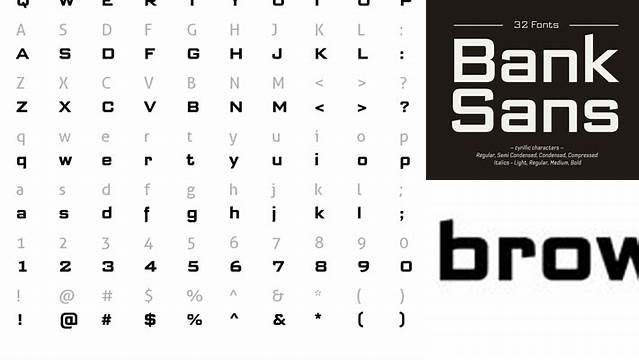
Bank Sans Bold Font: Download Free & Elevate Your Designs
Hey guys! Ever wanted a font that's clean, modern, and packs a punch? Well, look no further than Bank Sans Bold! It's a fantastic font, and the best part? You can often find a Bank Sans Bold free font download option to get you started. In this comprehensive guide, we'll dive deep into everything you need to know about this amazing typeface, from where to snag that Bank Sans Bold font free download to how to use it like a pro. We'll explore its versatility, design applications, and even give you tips on finding the perfect pairing for your projects. So, buckle up, because we're about to embark on a typography adventure! This article will not only give you access to a Bank Sans Bold free download but also provides you with extensive information on how to utilize it effectively. You'll get to understand the essence of the font and how to properly implement it into your design projects. Ready to get started? Let’s jump in!
Bank Sans Bold: Unveiling the Modern Typeface
Alright, let's get down to brass tacks: what is Bank Sans Bold? This font is a modern, sans-serif typeface known for its clean lines, strong presence, and excellent readability. Imagine a font that is both bold and sophisticated, that captures attention without being overly flashy – that's Bank Sans Bold in a nutshell. Its design makes it ideal for a wide array of applications, from headlines and logos to body text and branding materials. The font's versatility is a key reason for its popularity. Bank Sans Bold's straightforward design contributes to its readability, which is key whether you're designing a website or creating a poster. It allows the message to take center stage, minimizing distractions and enhancing the overall visual experience. If you’re a designer, a marketer, or even just someone who appreciates good typography, you'll love Bank Sans Bold. It's a workhorse of a font, capable of handling a variety of tasks with grace and style. But more than that, it has the visual impact to help your message pop out. Whether you’re creating content for the web or designing a physical product, Bank Sans Bold can truly elevate your designs to a whole new level. Let's delve into its features, history, and why it might just become your new favorite. Keep reading to know all about Bank Sans Bold!
Bank Sans Bold Font: Key Features and Characteristics
Bank Sans Bold isn't just a pretty face – it's packed with features that make it a top choice for designers and creatives. One of its standout characteristics is its boldness. The thick strokes make it incredibly eye-catching, perfect for headlines, titles, and anything that needs to grab attention instantly. Its sans-serif nature gives it a modern and clean aesthetic, fitting seamlessly into contemporary designs. The typeface has a high level of readability, even at smaller sizes, making it a great option for body text, especially when you need to make your copy clear and easy to digest. Another key feature is its versatility. Bank Sans Bold works well in both print and digital formats, meaning it's suitable for a wide range of projects, from websites and apps to brochures and posters. It plays well with others, too! Bank Sans Bold often pairs well with other typefaces, allowing you to create a harmonious and visually appealing design. The font's design is also quite neutral, meaning that it can be applied to different themes and projects. It is a workhorse that fits into different contexts. Its clean lines also contribute to its modern aesthetic, which makes it timeless. Whether you are aiming for a classic or modern look, Bank Sans Bold has a place in your projects. Its simple design makes it a favorite among many designers. All these features come together to make Bank Sans Bold a powerful tool in your design toolkit. Make sure you play around with it!
Bank Sans Bold in Design: Applications and Use Cases
Okay, so you've downloaded your Bank Sans Bold free font – now what? This font is incredibly versatile, making it perfect for tons of different design projects. Let’s look at some cool ways you can use it. First off, logos and branding. Bank Sans Bold is fantastic for creating logos that are modern, memorable, and clear. Its bold style ensures your brand name stands out. Think about its use in headlines, for website titles or blog posts. It’s perfect for capturing attention and making sure your message is seen immediately. Then, consider using Bank Sans Bold in your body text, like in a digital or print magazine. It can also be applied to packaging, giving your product a polished, professional look. Also, Bank Sans Bold is ideal for creating infographics or presentations. Its readability ensures that your data is easy to understand. For website design, use it for navigation menus or call-to-action buttons. It can also be implemented in social media graphics to make your content look more appealing. Bank Sans Bold is also perfect for posters and flyers, especially when aiming for a modern or minimalist look. Think about signage. Its bold style will help make sure that your sign is easily visible and gets your message across. Finally, think of using Bank Sans Bold for mobile apps, ensuring that your app’s interface is clean and user-friendly. No matter the use case, Bank Sans Bold is an effective font that will help your project stand out.
Bank Sans Bold vs. Other Fonts: A Comparative Analysis
Let's put Bank Sans Bold under the microscope and see how it stacks up against some other popular font choices. We often compare Bank Sans Bold to other sans-serif fonts such as Helvetica, Arial, and Open Sans. While Helvetica is a classic, it can sometimes feel a bit overused and less distinctive, especially when you want a strong visual impact. Arial, although widely available, might lack the modern edge and boldness of Bank Sans Bold. Open Sans is a great choice for body text, but it may not always provide the same visual weight for headlines. Then we can go on comparing it with serif fonts, like Times New Roman and Georgia. Serif fonts generally have a more traditional and elegant feel, which might be suitable for specific projects, however, they can often be less readable on screen compared to the clean lines of Bank Sans Bold. Each font has its strengths and weaknesses, so the best choice depends on your specific design needs. Bank Sans Bold provides a balanced solution, striking a perfect balance between boldness, readability, and modern aesthetics. Choosing between these fonts comes down to matching the font’s personality with the tone and purpose of your design. While Helvetica is a great general-purpose font, Bank Sans Bold gives you a bit more personality and flair. Arial is a good option, however, it’s not as visually striking. In comparison, Bank Sans Bold’s boldness makes it perfect for titles and headlines. When comparing it with serif fonts, Bank Sans Bold will bring a modern vibe to your designs. In the end, it’s about choosing the right tool for the job.
Pairing Bank Sans Bold: Complementary Fonts and Styles
Choosing the right font pairings is key to creating a cohesive and visually appealing design, and Bank Sans Bold is no exception. Because of its boldness, Bank Sans Bold pairs well with a variety of other typefaces. For a clean and modern look, consider pairing it with a simple sans-serif font for body text. Open Sans and Roboto are popular choices that complement Bank Sans Bold without overshadowing it. If you’re aiming for a more elegant or sophisticated feel, try pairing Bank Sans Bold with a classic serif font like Georgia or Playfair Display for body text. The contrast between the bold sans-serif and the more traditional serif can be quite striking. For headings and subheadings, you could keep it within the family and use a lighter weight of Bank Sans to maintain consistency. Another option is to go for a contrasting style by mixing the font with a more decorative font. Think about script or display fonts. Just be careful to keep your design readable and avoid mixing too many styles. When choosing a pairing, consider the overall tone and style of your project. If you are going for a minimalist and modern design, stick with a simple sans-serif pairing. For a more classic feel, choose a serif font. By experimenting and finding the right combinations, you can make the most of your Bank Sans Bold free font download and enhance your designs.